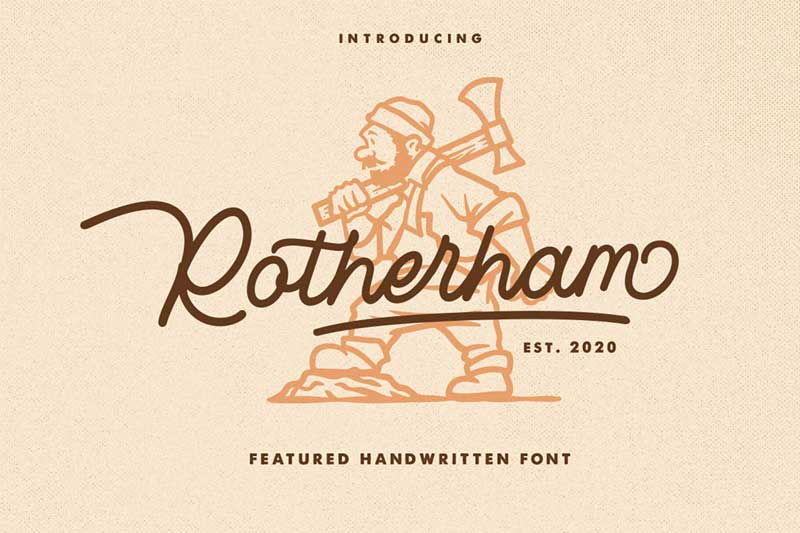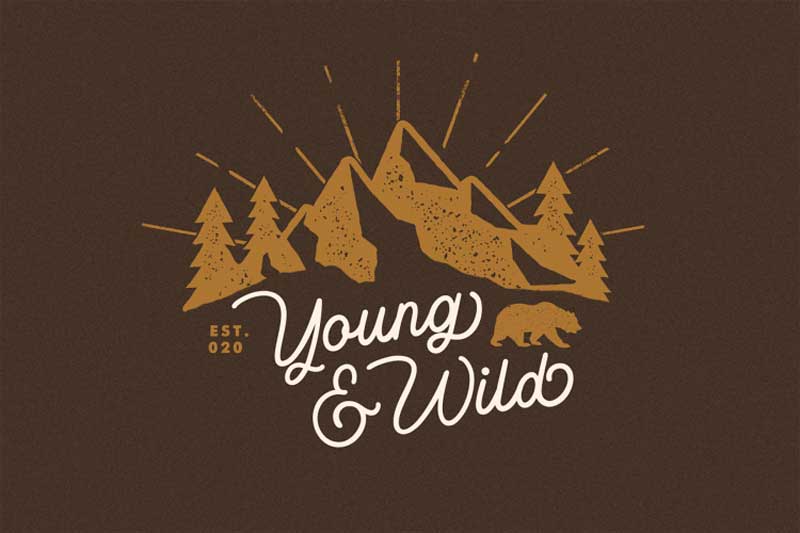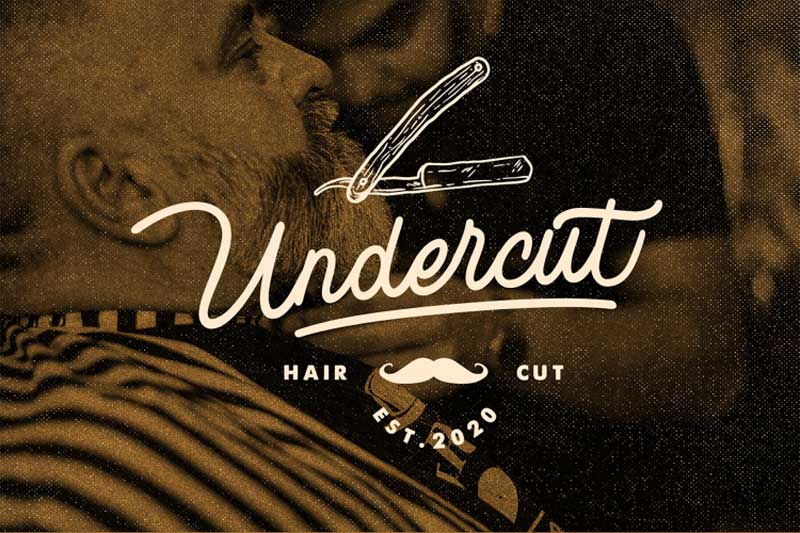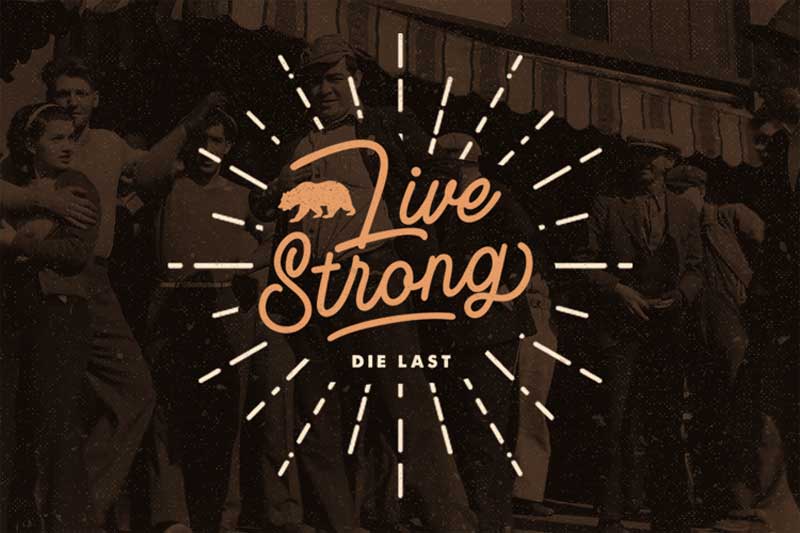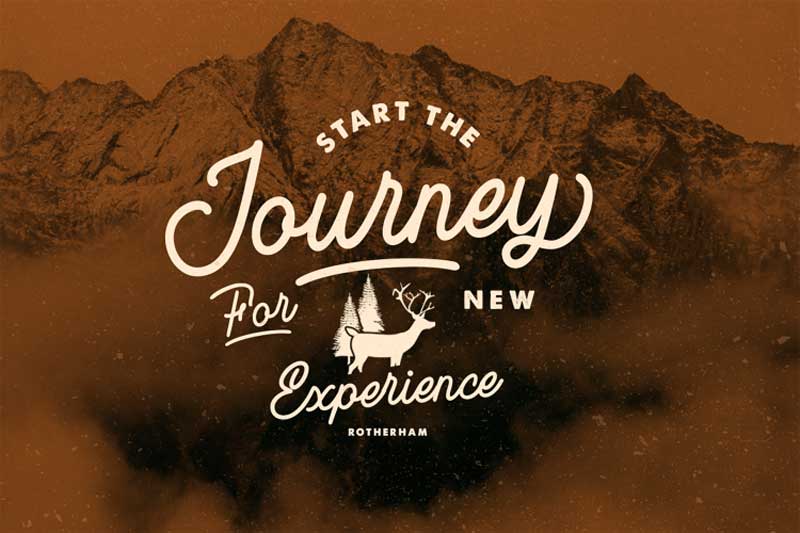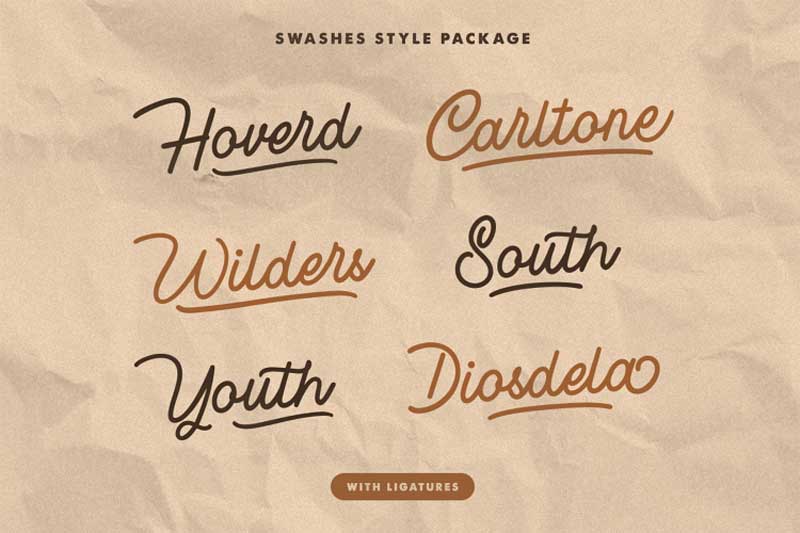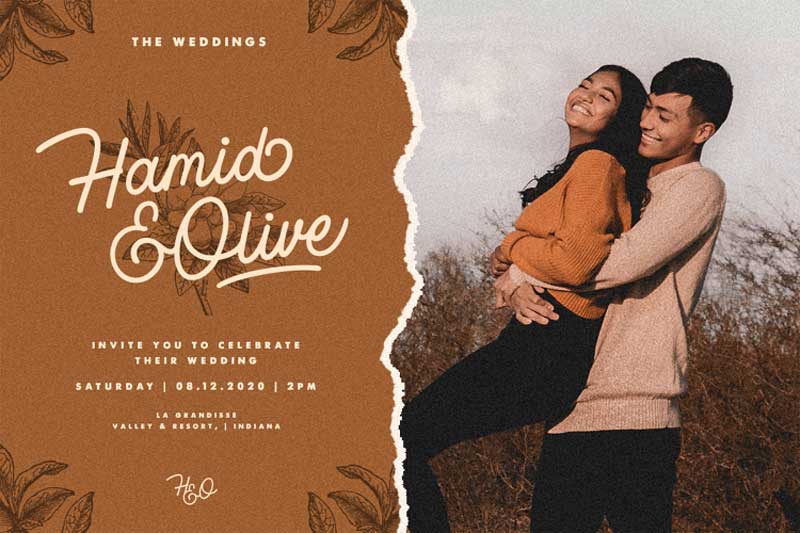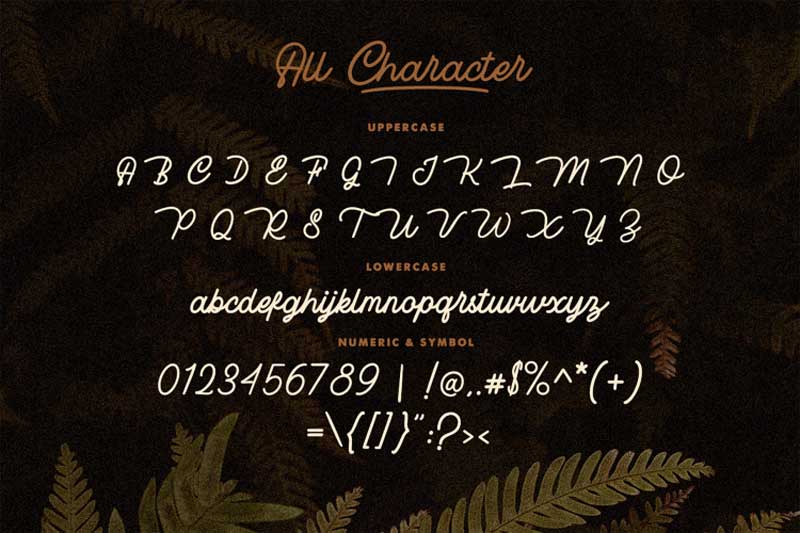
Rotherham Signature Font Typeface 489474
Rotherham is a signature font This font can be used in various applications such as vintage, signature, and you can create beautifully including